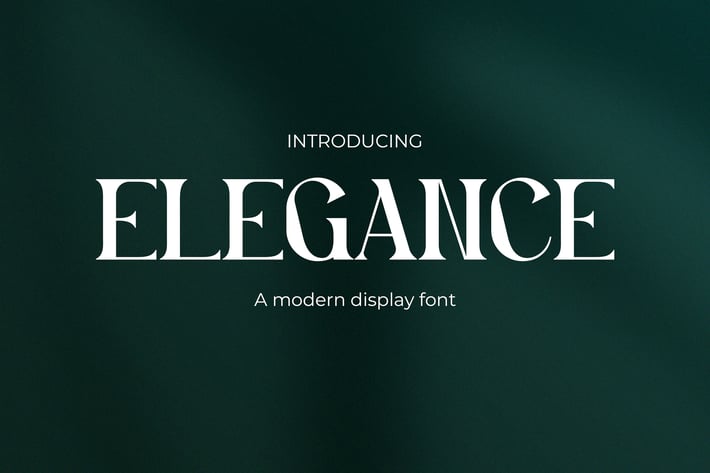
Elegance - Retro Modern Font
Elegance, a captivating blend of modern allure and classic sophistication, embodies timeless design. With its versatile style, this serif font elevates fashion, logos, quotes, invitations, signage, posters, greeting cards, packaging, branding, wedding quotes, cover albums, and more, infusing each project with refined charm and grace.